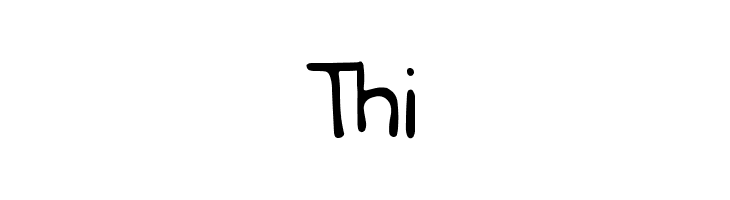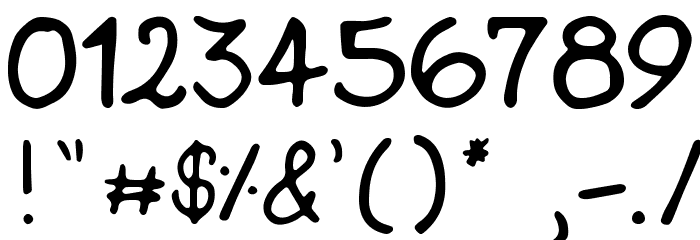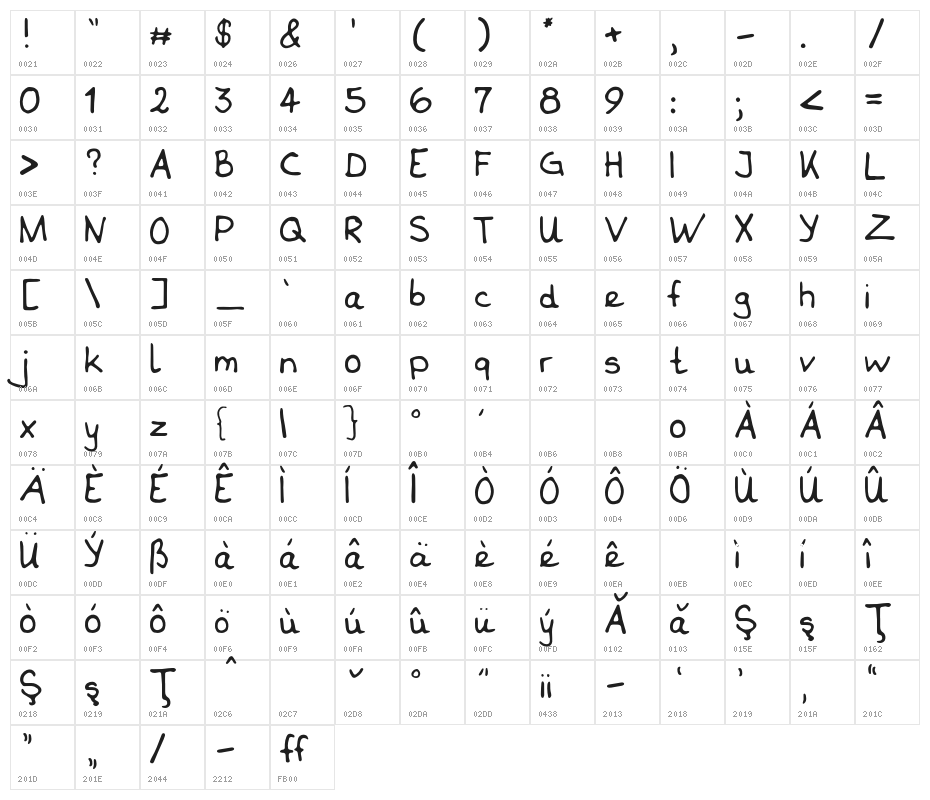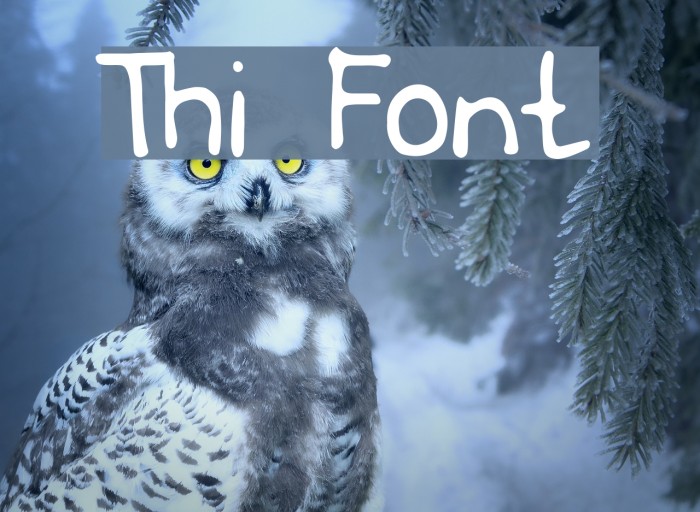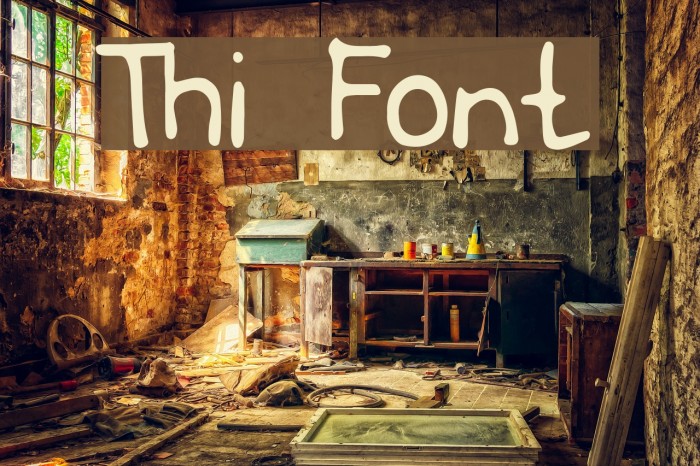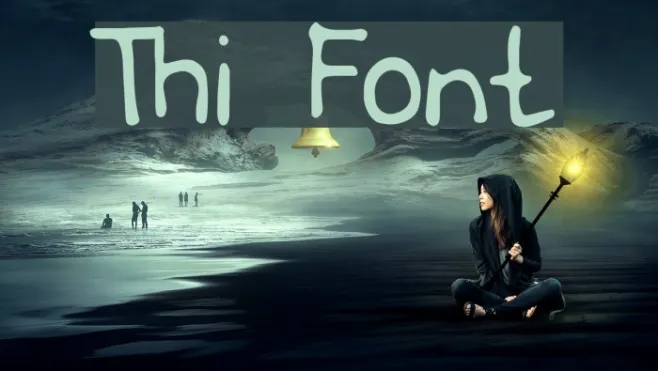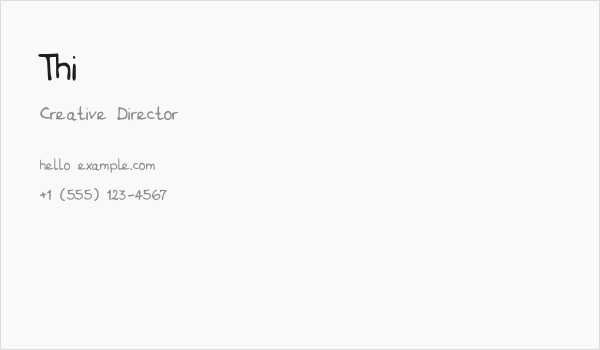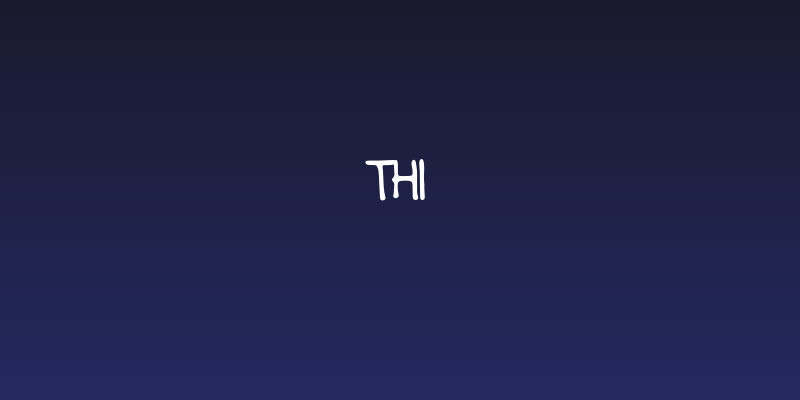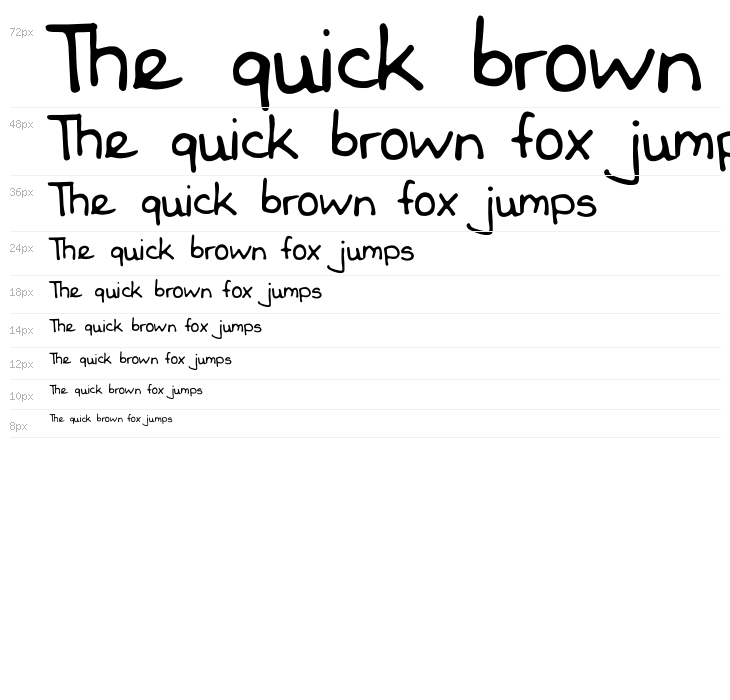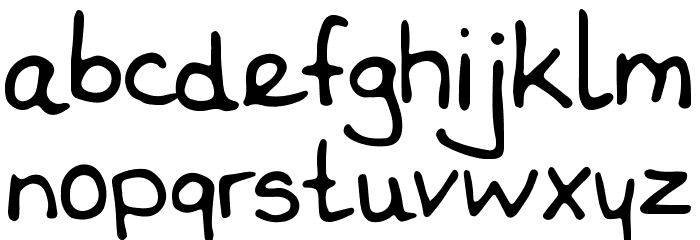
Thi Font
Thi Description
This playful and informal font features a handwritten style with a casual and friendly appearance. The letters are slightly irregular, giving it a personal touch that mimics natural handwriting. The strokes are smooth and rounded, with a consistent thickness throughout, providing a harmonious and approachable look. The font includes both uppercase and lowercase letters, numbers, and a variety of special characters, making it versatile for different uses. Its unique charm and readability make it suitable for creative projects that require a personal and engaging feel.
| Proposed Projects | Ideal for greeting cards, children's books, personal blogs, and informal branding. |